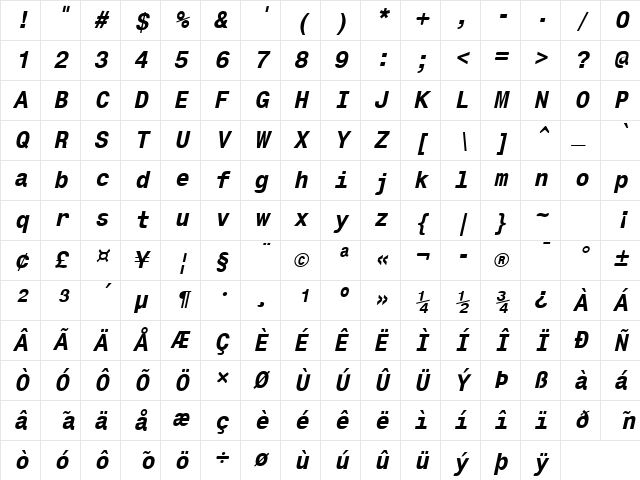
Complete Corporate Mono Bold Oblique glyph index. Displaying only characters natively supported by Corporate Mono Bold Oblique font.
Corporate Mono uses fixed-width spacing throughout, giving it the structured, systematic character associated with coding environments and technical documentation. The slanted form adds forward momentum and visual energy. Its bold stroke weight gives it real presence on the page.